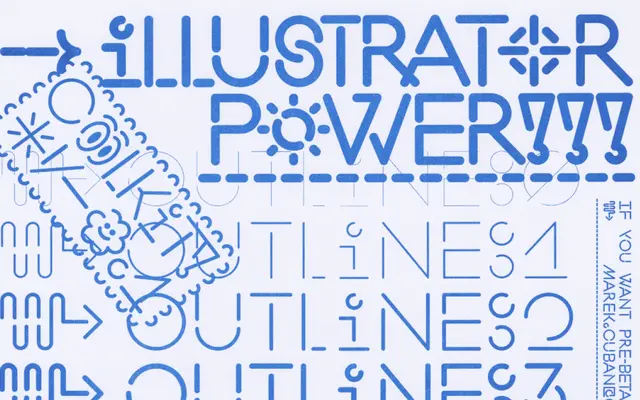
Coolkit
Displaay Type Foundry · 2022
An outline display typeface that builds visual weight through its contour strokes rather than filled letterforms, originating as a student project at UMPRUM Prague in 2022.
Designed during a three-week semester project at UMPRUM, the Academy of Arts, Architecture and Design in Prague, Coolkit takes an unconventional approach to weight by constructing it through the outline rather than a solid fill. The core concept survived refinement intact, though every curve was reworked before release. Its character makes it best suited to headlines, posters and contexts where a distinctive drawn quality is the point.
Coolkit builds weight through its outline rather than filled strokes, placing it firmly in display territory as an outline or contour-style typeface designed for impact at large sizes.